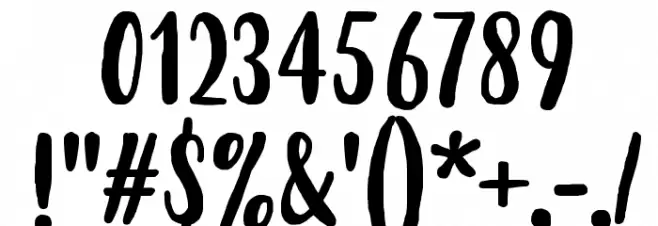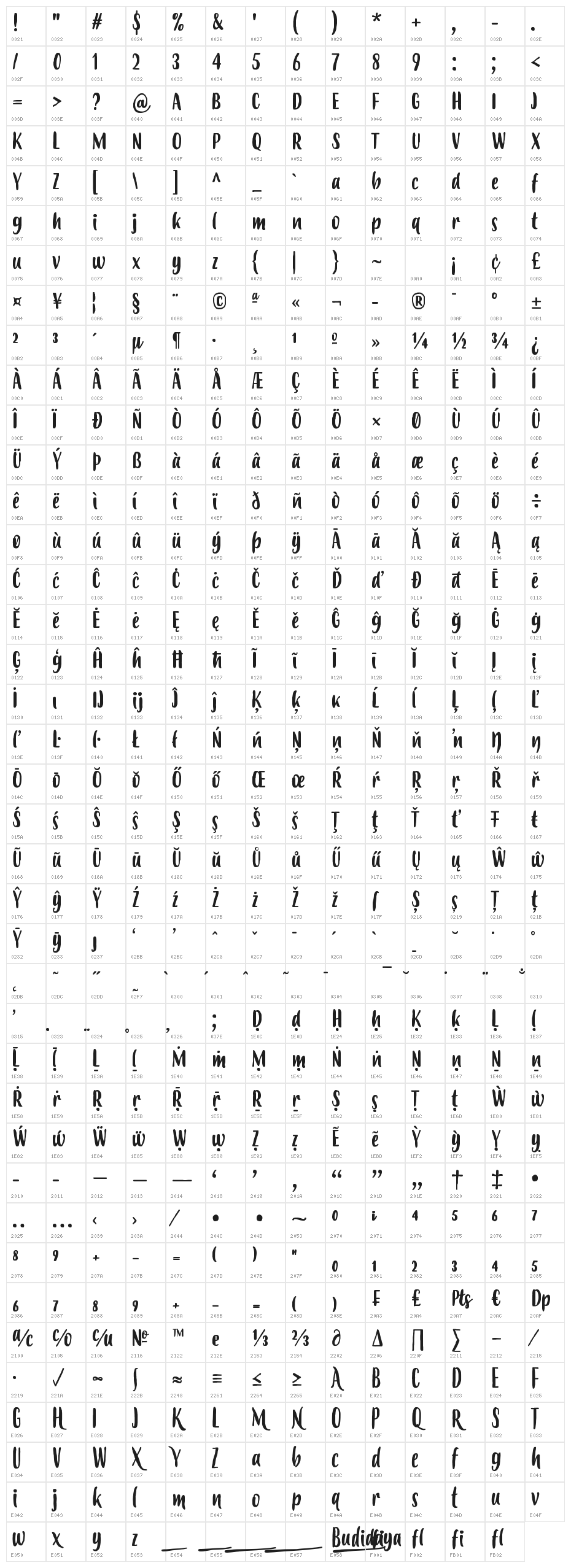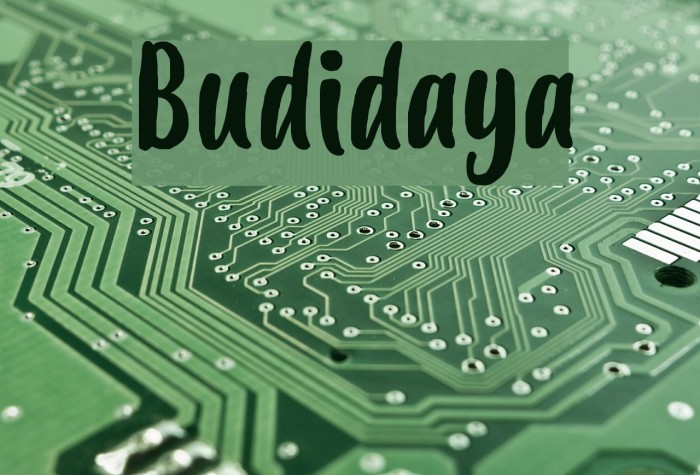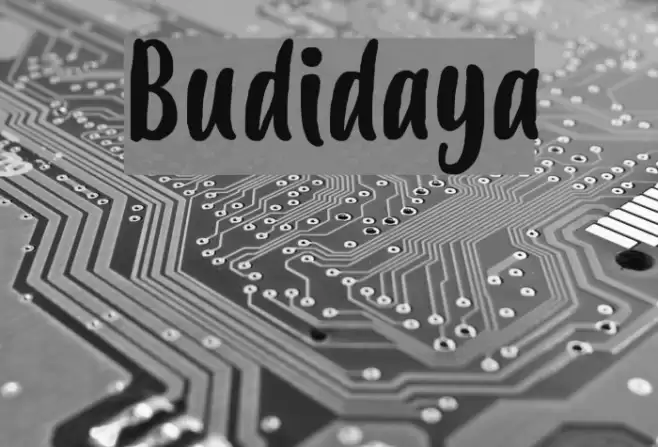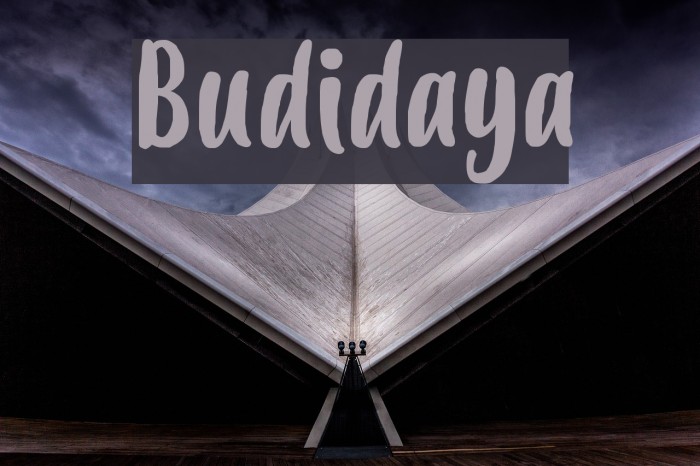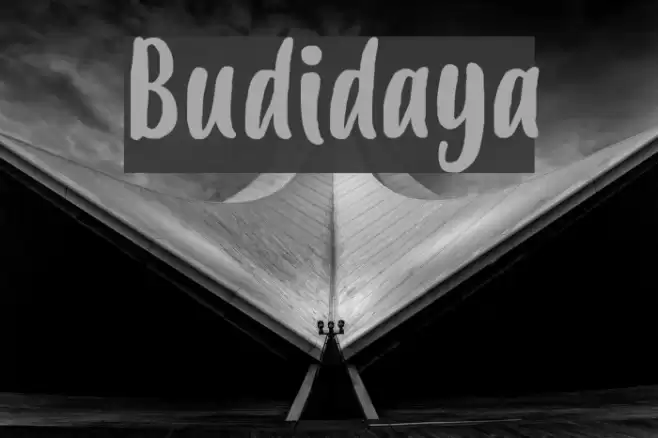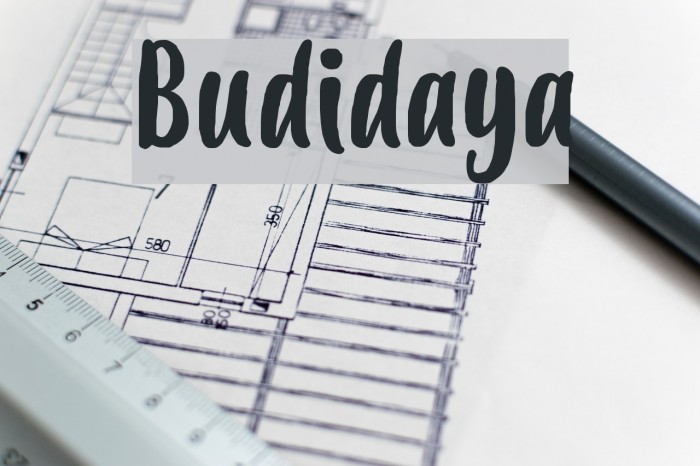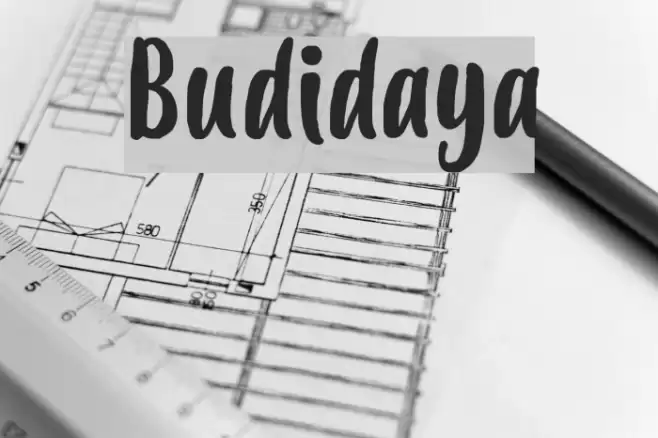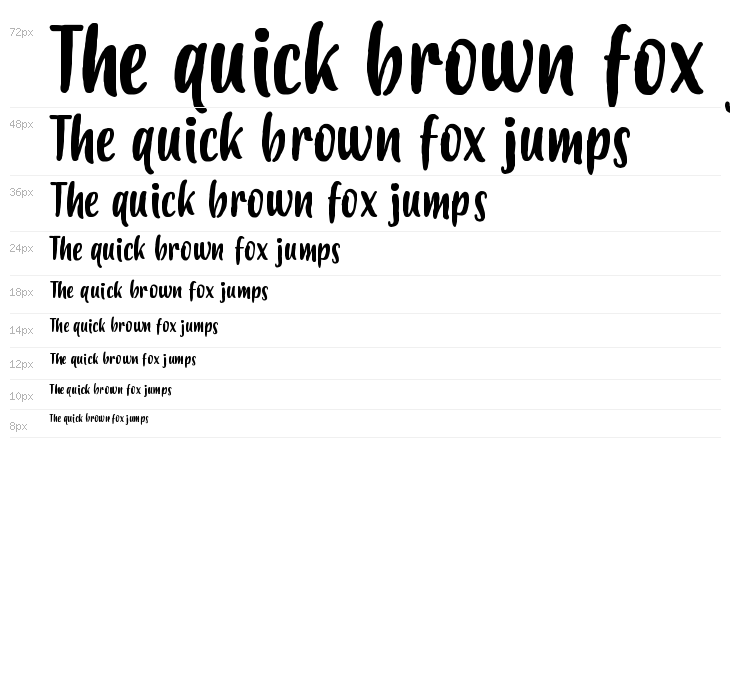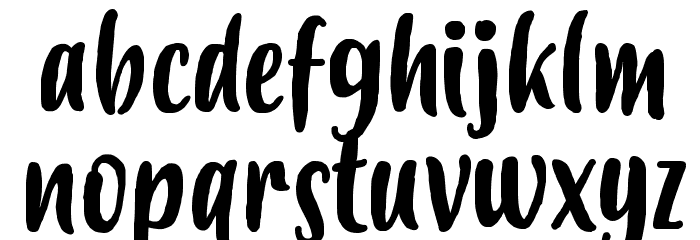
Budidaya Font
Budidaya Description
This font features a bold and expressive handwritten style, characterized by its thick strokes and slightly irregular shapes that give it a lively and dynamic appearance. The uppercase letters are tall and commanding, while the lowercase letters maintain a consistent flow, enhancing readability. The numerals are bold and clear, matching the overall robust style of the alphabet. Special characters are creatively integrated, maintaining the playful and artistic essence of the font. This typeface is ideal for projects that require a personal touch or a sense of creativity and energy.
| Proposed Projects | Ideal for branding, posters, greeting cards, and creative projects that require a personal touch. |